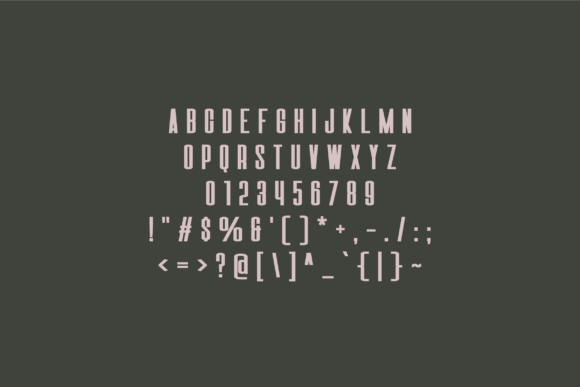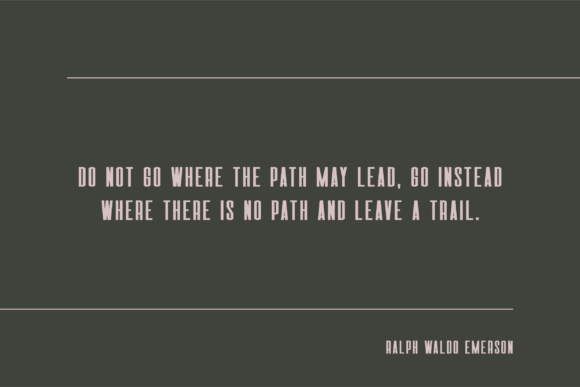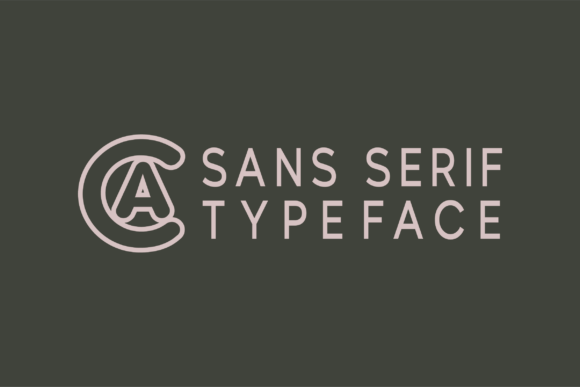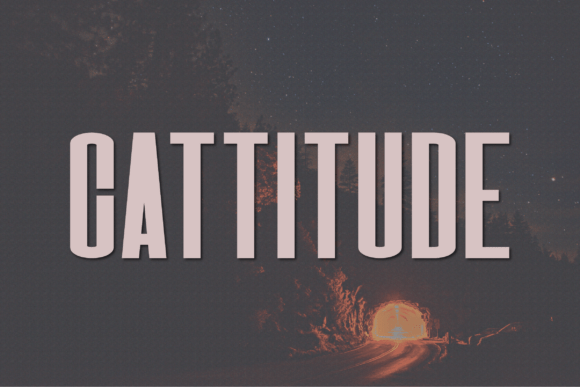
Cattitude Font: Elevate Your Designs with Modern Elegance
In the world of typography, a good font can make all the difference in elevating your design from ordinary to extraordinary. If you’re a designer, crafty DIY enthusiast, or simply someone who appreciates beautiful typography, you’re in luck! Introducing Cattitude, a modern, classy sans serif typeface that’s about to become your new go-to font for a wide range of creative projects.
What is Cattitude Font?
Cattitude is a sleek and sophisticated sans serif typeface that boasts a versatile character set, including upper characters, numbers 0-9, and a range of punctuation and symbols. This comprehensive character set makes Cattitude an extremely versatile font, perfect for a variety of applications, from logos and branding to weddings, invitations, quotes, advertisements, print materials, magazines, and more!
Key Features of Cattitude Font
- Modern and Classy Design: Cattitude’s clean lines, balanced proportions, and elegant curves make it a quintessential modern sans serif font.
- Comprehensive Character Set: Uppercase characters, numbers 0-9, and a wide range of punctuation and symbols ensure you have everything you need to create stunning text-based designs.
- Versatility: Whether you’re designing a logo, creating wedding invitations, or crafting advertisements, Cattitude’s versatility shines through.
Use Cases for Cattitude Font
Cattitude’s adaptability makes it an excellent choice for numerous design projects, including:
- Logos and Branding: Cattitude’s modern and classy appearance makes it perfect for creating sleek, professional logos and branding materials.
- Weddings and Invitations: Add a touch of elegance to your wedding invitations, save-the-dates, and other stationery with Cattitude’s sophisticated charm.
- Quotes and Typography: Cattitude’s clean lines and balanced proportions make it an excellent choice for showcasing inspirational quotes, sayings, and phrases.
- Advertisements and Marketing: Elevate your ads, flyers, and marketing materials with Cattitude’s modern and attention-grabbing design.
- Print and Magazines: Cattitude’s legibility and style make it suitable for use in print publications, such as magazines, newspapers, and brochures.
Why Choose Cattitude Font?
With so many fonts available, why choose Cattitude? Here are just a few compelling reasons:
- Unique yet Versatile: Cattitude strikes the perfect balance between uniqueness and versatility, making it suitable for a wide range of design projects.
- Easy to Read: Cattitude’s clean design and balanced proportions ensure excellent legibility, even at smaller font sizes.
- Time-Saving: With Cattitude’s comprehensive character set, you can complete your designs quickly and efficiently, without the need for multiple fonts.
Cattitude font is an exceptional addition to any designer’s toolkit. Its modern, classy sans serif design, comprehensive character set, and versatility make it the perfect choice for a wide range of creative projects. Whether you’re a seasoned designer or a crafty DIY enthusiast, Cattitude is sure to elevate your designs and help you create stunning visual content. So why wait? Discover the power of Cattitude font today and take your designs to the next level!